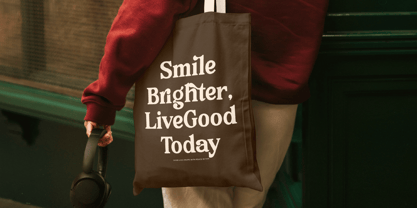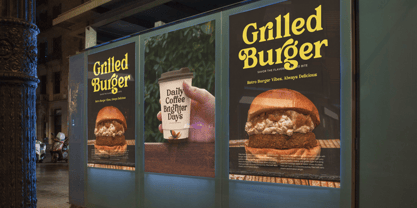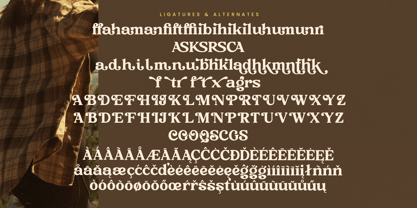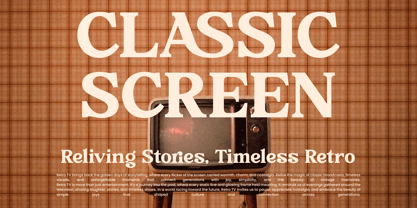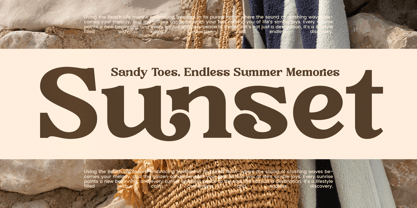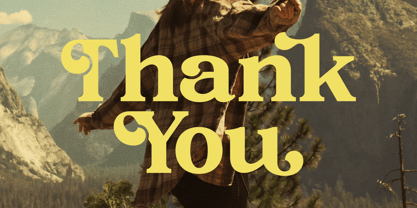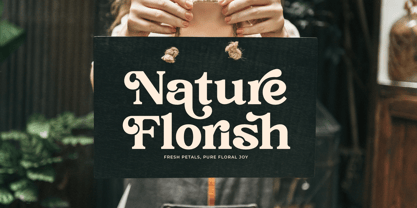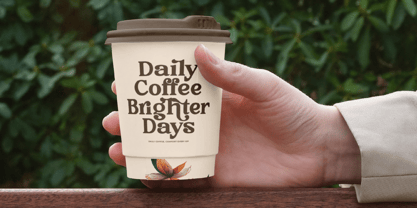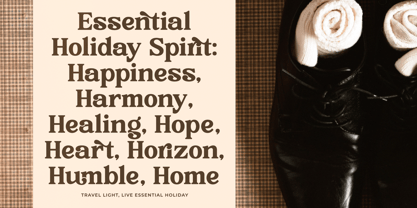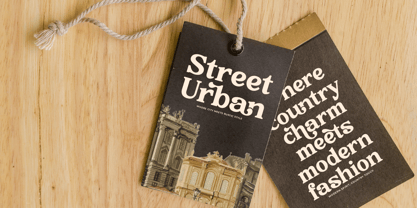
Rustic Cuntry
The Rustic Cuntry Font Family was designed by Heru Utama Putra and published by Timelesstype Studio. Rustic Cuntry contains 2 styles and family package options. More about this family
Rustic Cuntry - Modern Vintage Serif Font , from Timelesstype , Suitable for any projects such as: logos, branding projects, homeware designs, product packaging, mugs, quotes, posters, shopping bags, t-shirts, book covers, name card, invitation cards, greeting cards, label, photography, watermark, special events, and all your other luxury and beautiful projects that need a Luxury Serif taste.